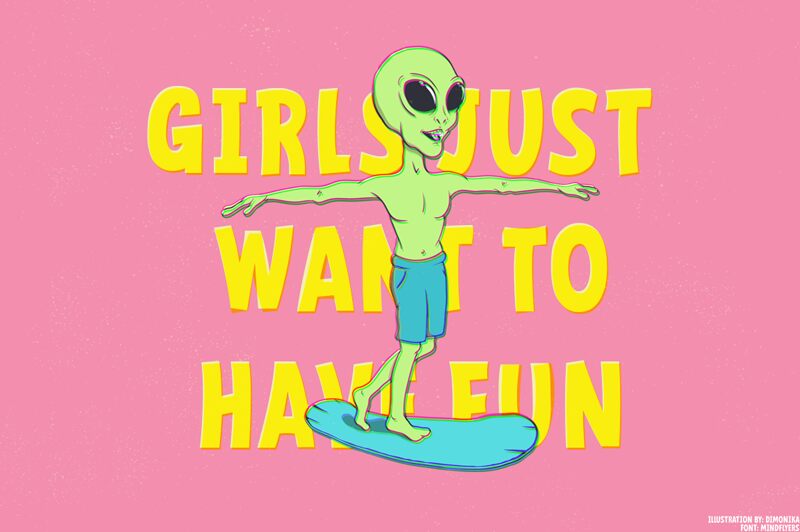
Mindflyers Outline
Mindflyers Outline is a captivating display font by The Branded Quotes. With its semi-bold weight and semi-condensed width, this cartoon-style font adds a playful touch to any project. Its outlined design creates an eye-catching effect that is perfect for children's books, comic strips, and animated videos. Let your imagination take flight as Mindflyers Outline brings creativity and charm to logos, packaging designs, and social media graphics. Stand out from the crowd with this font that combines readability with a touch of whimsy.
When you're serious at presenting your fun design. Mindflyers captures the look of a semi-formal sans serif. It has six different styles so you don't need to tweak anything. This font works great for a fun and minimal logo, comics strip, bold posters, tumblr fun quotes and pop-art style projects.
Font Styles: Bold, Regular, Outline, Fill, Comics, Comics Italic
Features: Uppercase, Punctuation, Multilingual Support